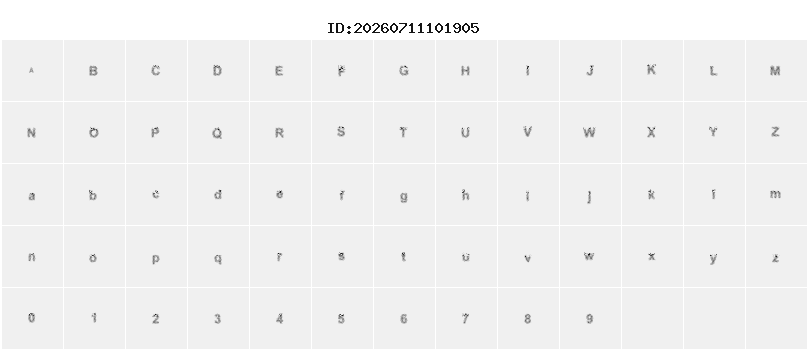
Half Tone Arial Preview
About Half Tone Arial.ttf
Half Tone Arial.ttf is a modern, elegant sans-serif font designed for ultimate readability and visual harmony. Perfect for branding, headlines, web design, and print materials.